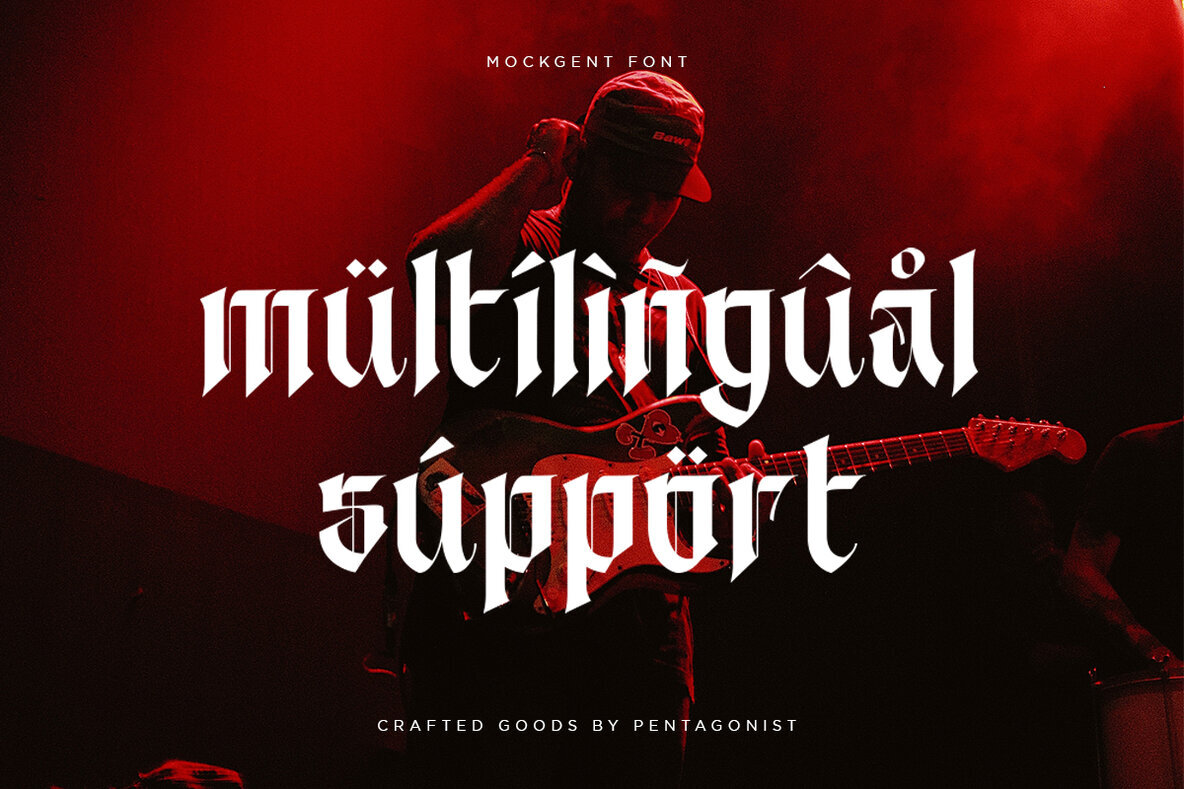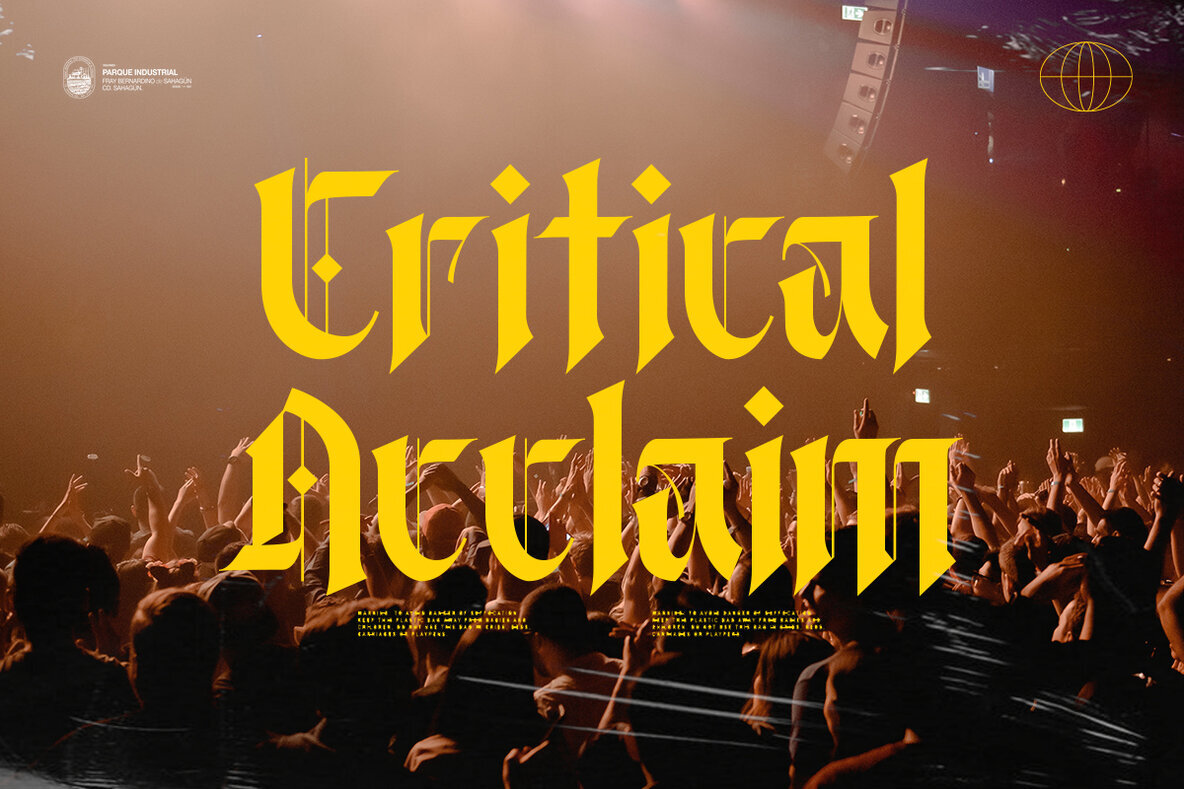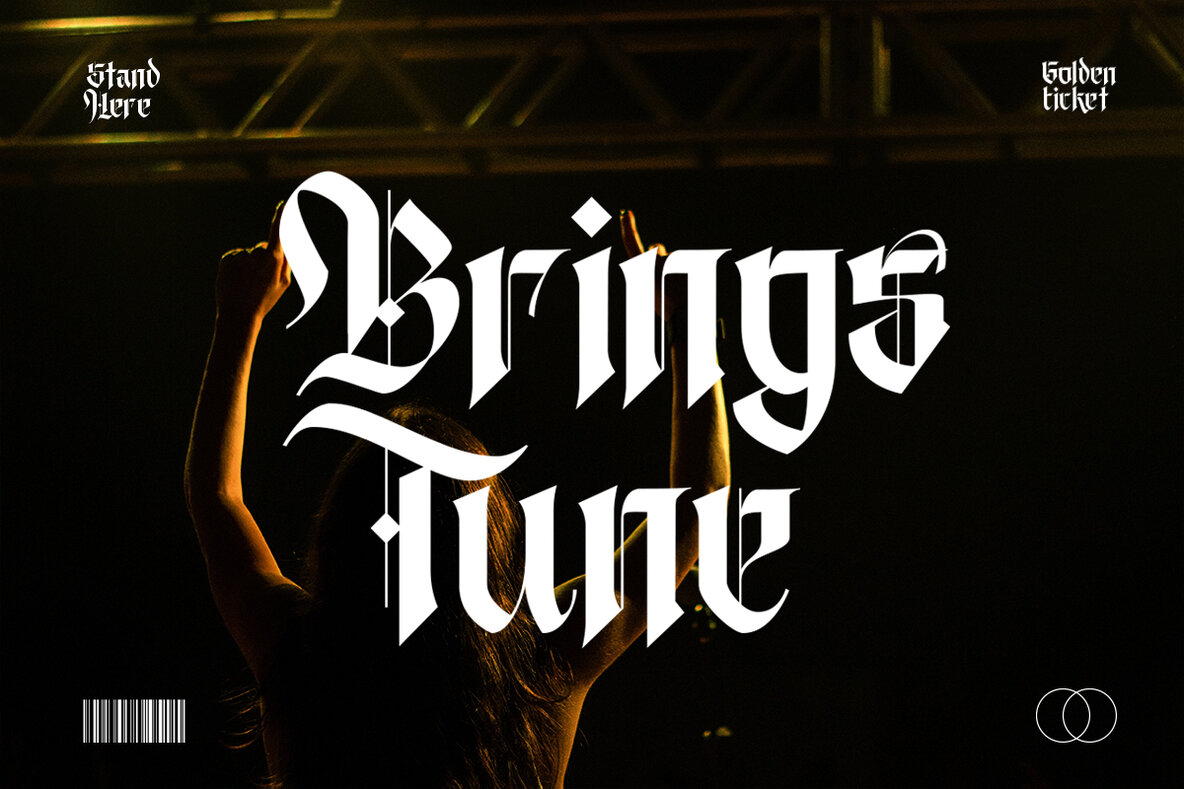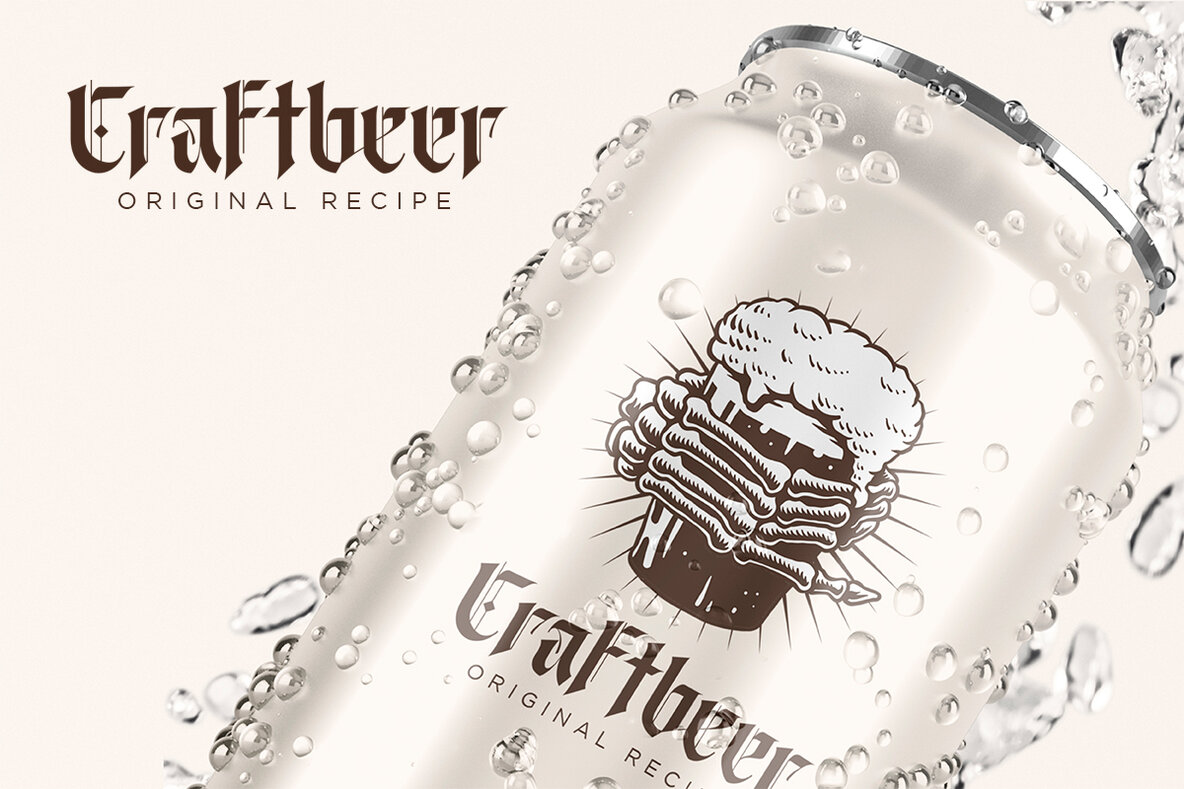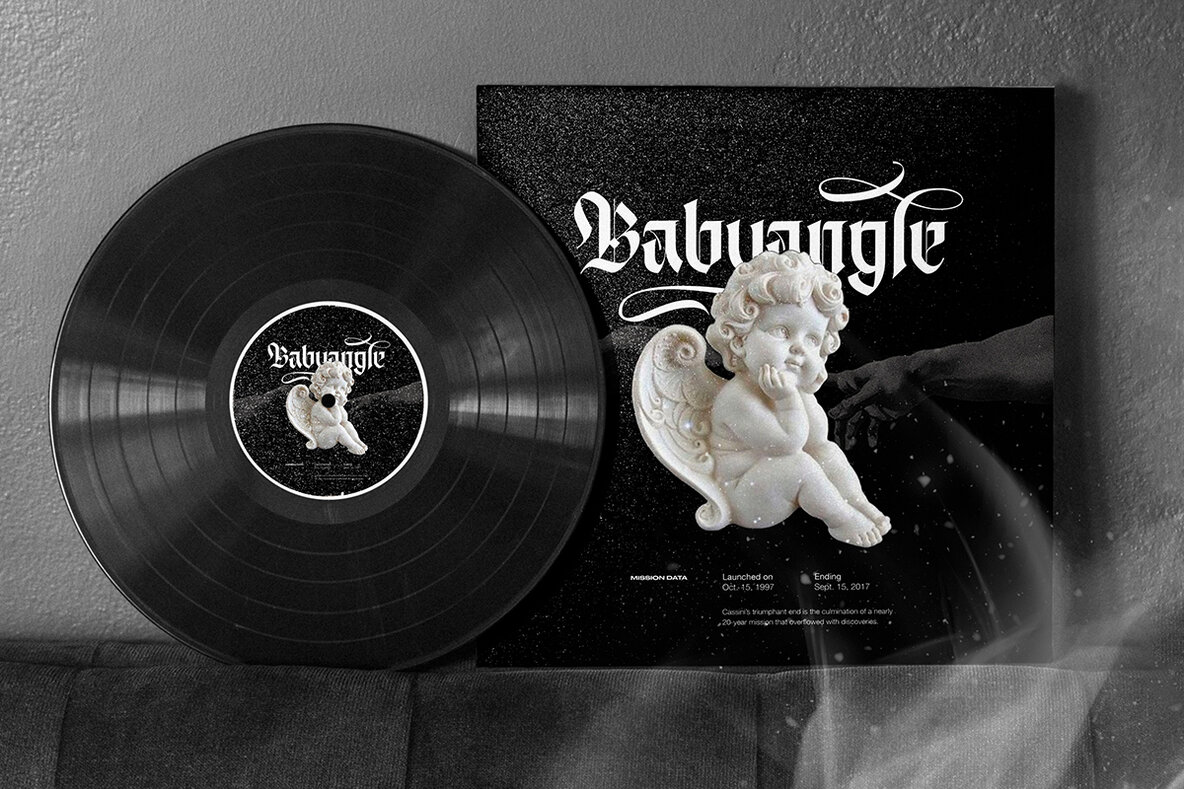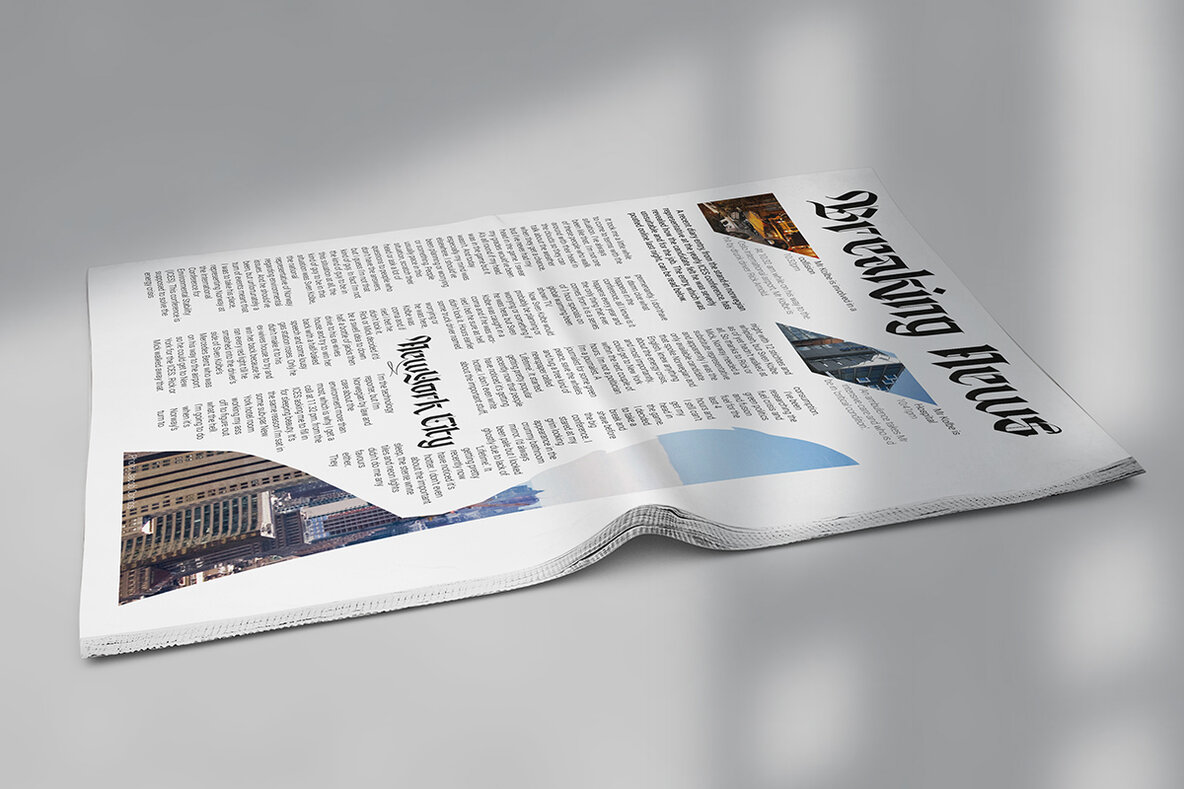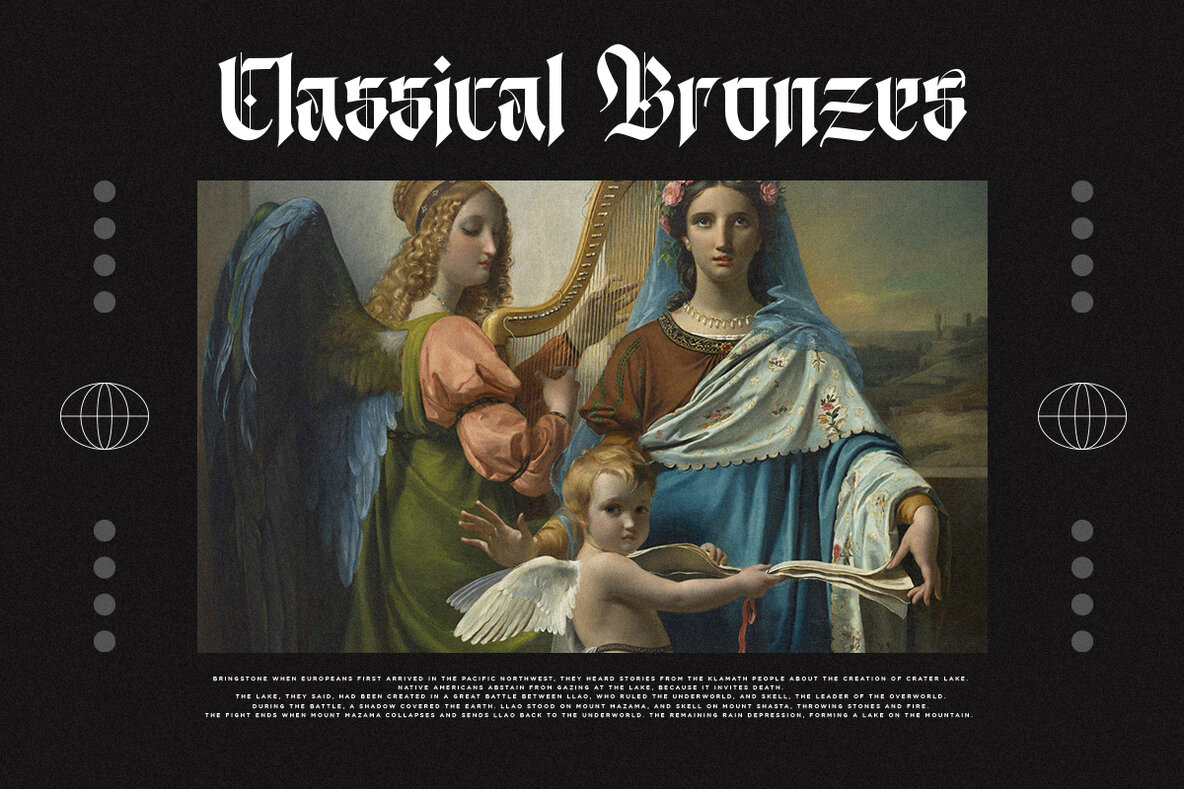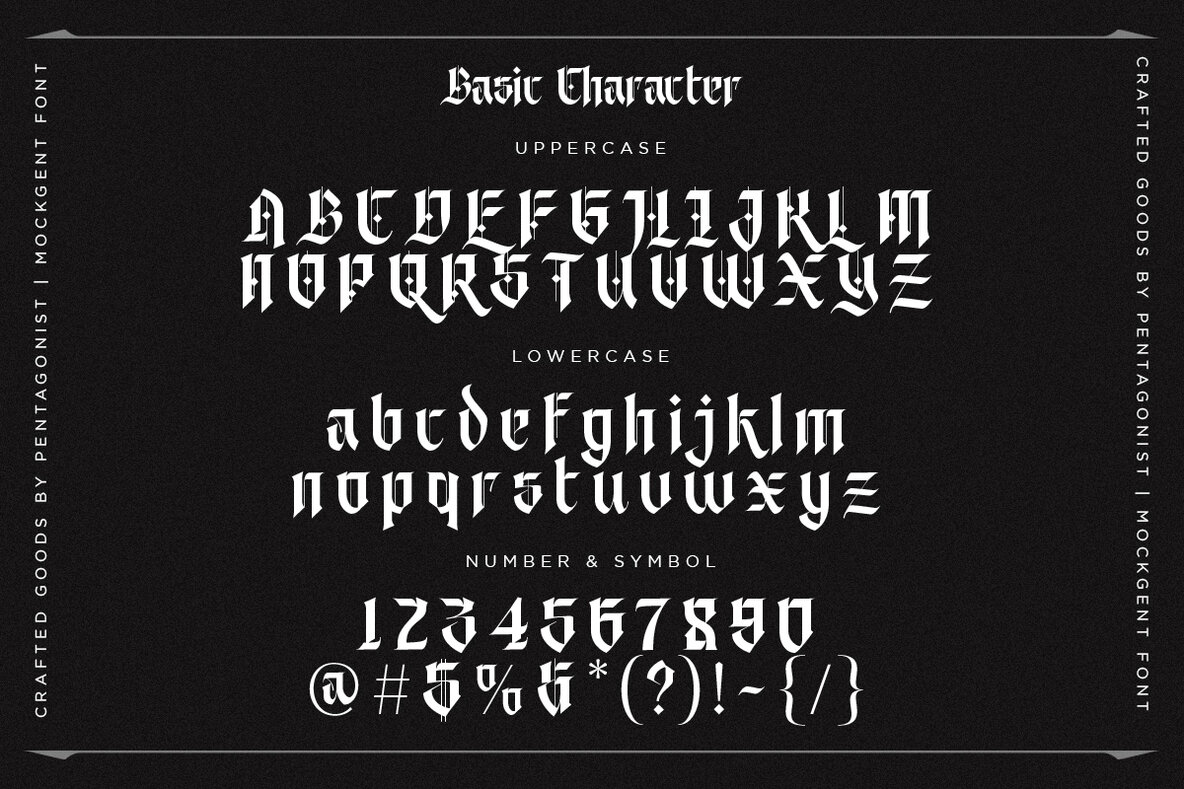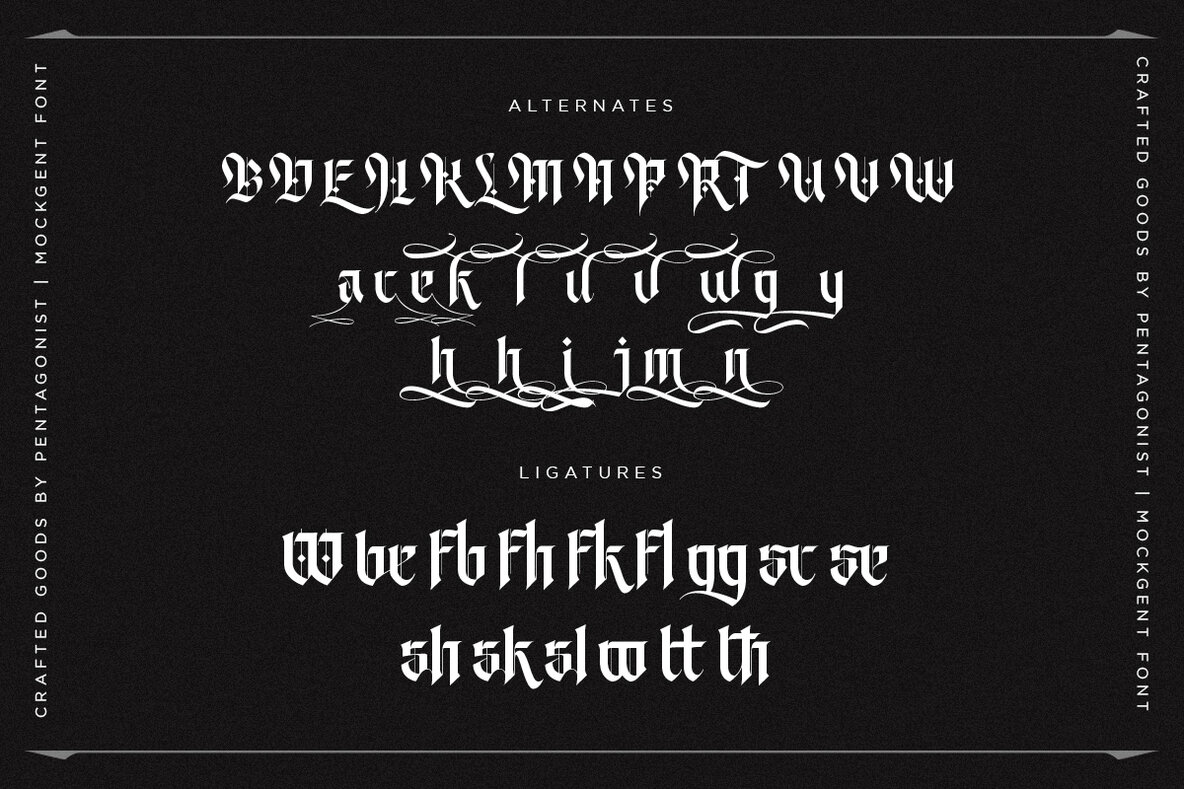
Mockgent Font
Mockgent Regular
Mockgent offers a unique blackletter style, blending sleek and gothic elements for distinctive design projects. Follow our shop for updates including new glyphs and language support. For custom language additions or feature requests, feel free to message us. Enjoy using Mockgent! Mockgent: Gothic-Inspired Blackletter Font